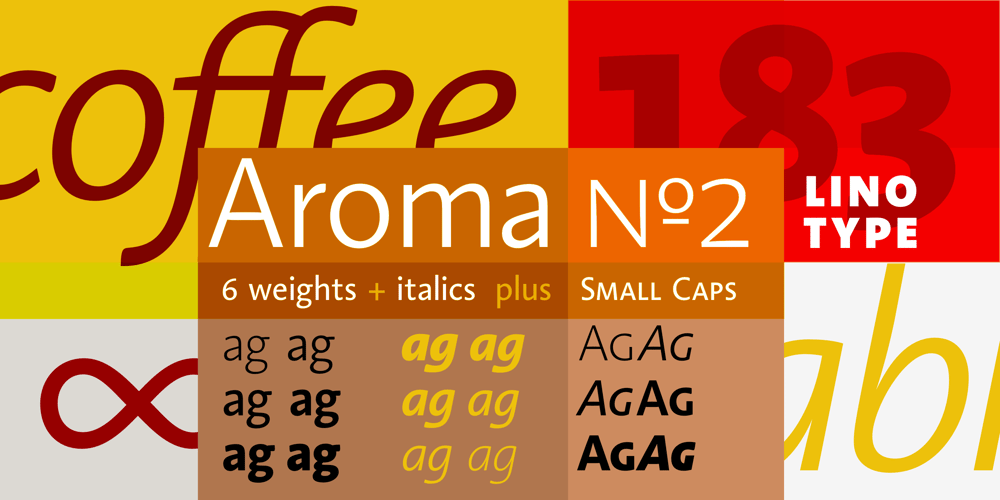
Linotype Aroma No. 2
Linotype Aroma No. 2 font
Linotype Aroma No. 2 Font Family was designed by Tim Ahrens and published by Linotype. Linotype Aroma No. 2 contains 12 styles and family package options. Linotype Aroma No.2 appears straightforward in form, completely sans serif, yet with a trace of humanistic features that gives it that extra edge.